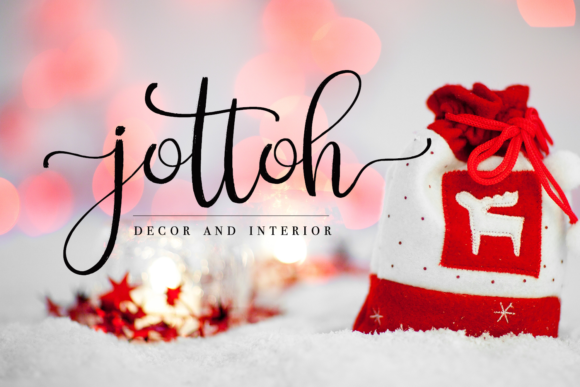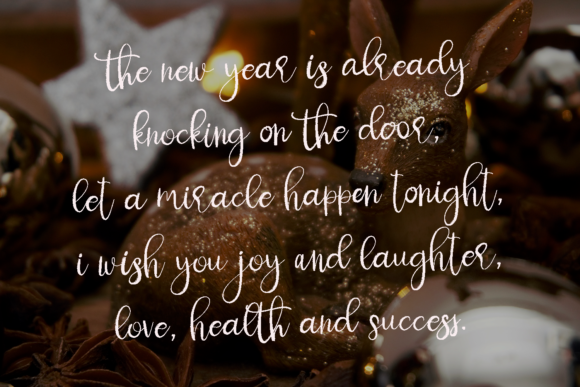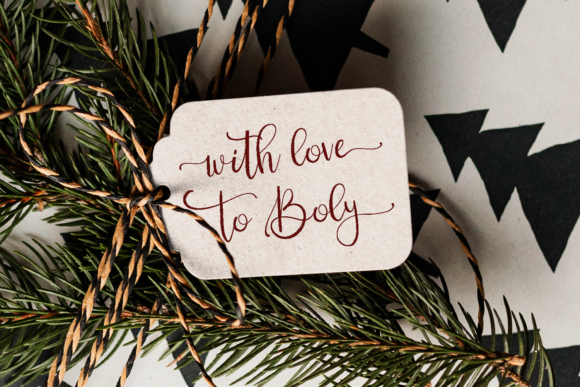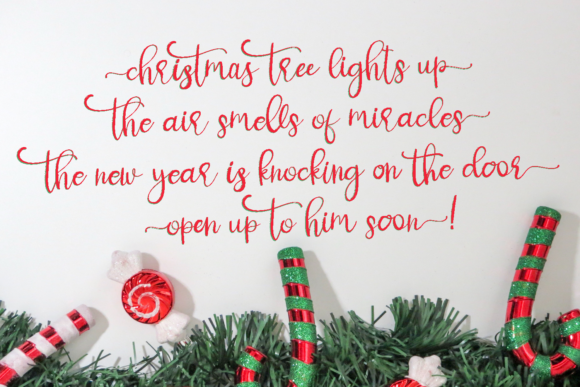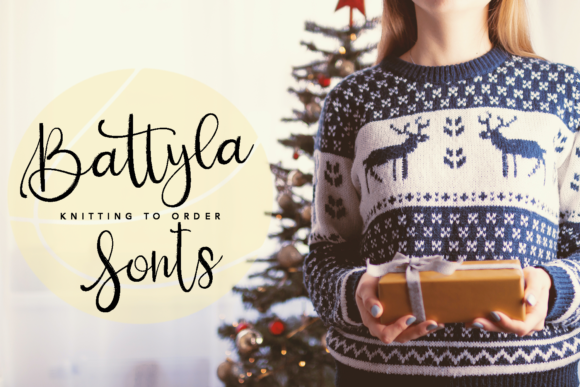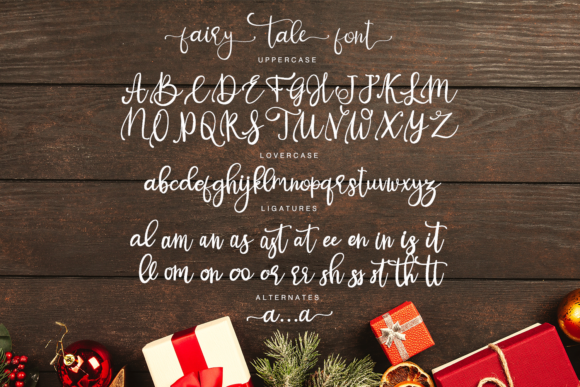
The Enchanting Fairy Tale Font: A Designer’s Dream Come True
I’ll never forget the moment I stumbled upon the Fairy Tale font while working on a whimsical project for a client’s children’s book. I had been searching for the perfect handwritten font for hours, but nothing seemed quite right. That was until I saw Fairy Tale – a thin brush style font that instantly captured my heart. Its incredibly versatile style and delicate charm made me fall in love, and I knew I had found the one.
- ✨ Extremely versatile and adaptable to various design projects
- ✅ Beautifully crafted with a delicate, hand-brushed feel
- 💫 Perfect for creating whimsical, fairy tale-inspired designs
- 👍 Easy to read and understand, even in smaller font sizes
- ⚠️ Some letters may appear a bit narrow or tall, which can affect overall text flow
- 🤔 Limited availability of certain special characters or glyphs
The Story Behind Fairy Tale Font: A Glimpse into Its Design Inspiration
Imagine a world where fantasy and reality blend together. This is the world that inspired Fairy Tale font. Its creator, a talented designer with a passion for storytelling, aimed to craft a font that would transport users to a magical realm. With Fairy Tale, you can bring this enchantment to your designs and captivate your audience.
| Font Name | Fairy Tale Font |
| Author | enyaaa90 |
| What makes Fairy Tale font so special? | Fairy Tale’s unique blend of delicacy and versatility makes it perfect for a wide range of design projects. |
| Is Fairy Tale font suitable for body text? | While Fairy Tale is beautiful, it’s best suited for headings, titles, and short paragraphs. For longer body text, consider a more readable font. |